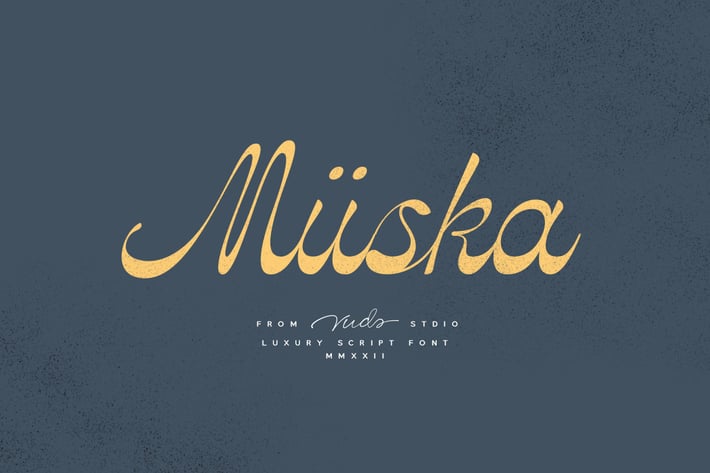
Muska Font
Muska is modern luxury script font, every single letters have been carefully crafted to make your text looks beautiful. With modern script style this font will perfect for many different project ex: Instagram post, signature logo, watermark, quote, blog header, poster, wedding, branding, logo, fashion, apparel, letter, invitation, stationery, etc.
Foreign languages support: ÀÁÂÃÄÅÆÇÈÉÊËÌÍÎÏÐÑÒÓÔÕÖØÙÚÛÜÝàáâãäåæçèéêëìíîïðñòóôõöøùúûüýÿ